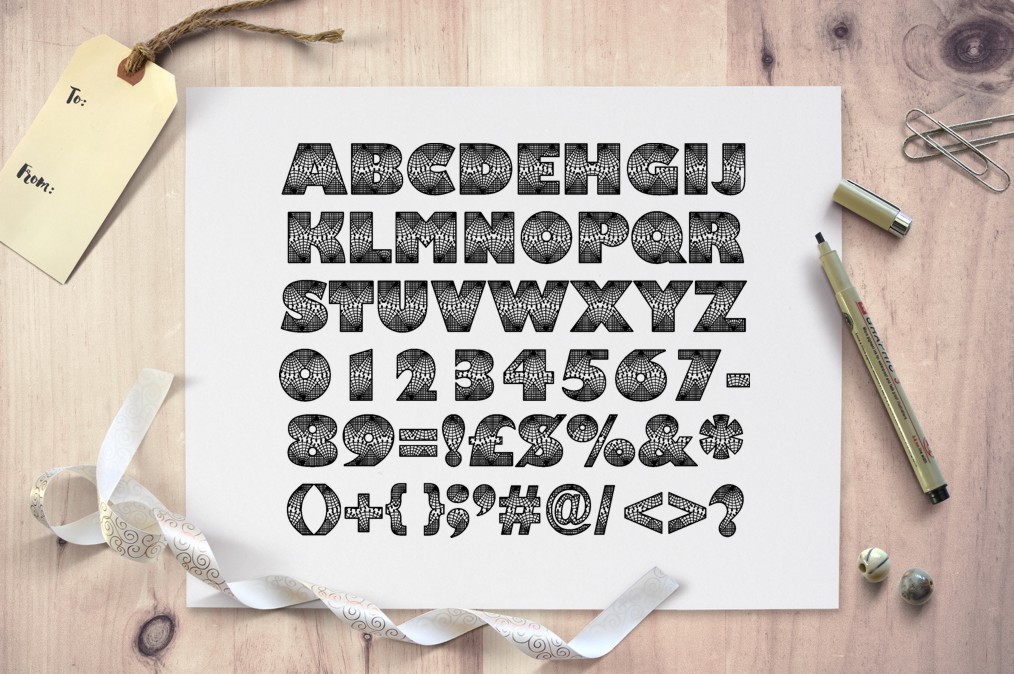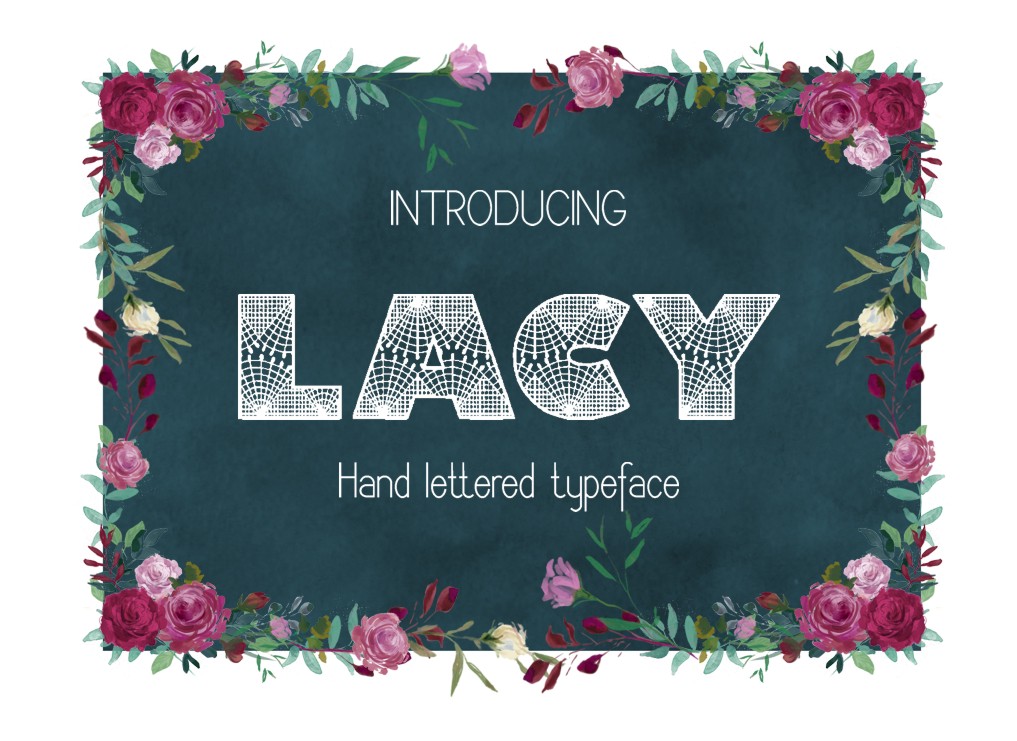
Introduction to Lacy Font
As a designer, there’s nothing quite like the thrill of discovering a new font that sparks creativity and takes your project to the next level. For me, that moment came when I stumbled upon the enchanting Lacy Font by the talented Eva Barabasne Olasz.
With its delicate, lace-like patterns and intricate details, the Lacy Font is a design resource that adds a touch of elegance and sophistication to any creative project. Whether you’re working on a wedding invitation, a fashion brand’s logo, or a packaging design, this high-quality font is sure to impress. And the best part? It’s available for free download with a transparent background, making it incredibly versatile and easy to use.
As a valuable addition to any designer’s toolkit, the Lacy Font offers endless possibilities for creative expression and experimentation. So why not give it a try and see how it can elevate your next design project?
Key Features of Lacy Font
- High-quality, intricate design suitable for various creative projects.
- Unique lacy patterns and delicate details make it perfect for adding a touch of elegance to any design.
- Can be easily scaled and manipulated to suit the needs of your design project.
Honest Review: Lacy Font
I recently stumbled upon the Lacy Font while searching for a high-quality design resource to add some elegance to my creative project. I was excited to give it a try and see if it lived up to my expectations.
Here are the things that I think work well with the Lacy Font:
- ✨ Beautiful, intricate design that adds a touch of sophistication to any text
- ✨ Suitable for a wide range of creative projects, from wedding invitations to fashion branding
- ⚠️ Limited font sizes, which may require some additional formatting to achieve the desired look
- ⚠️ Not ideal for use on digital platforms, as it may not display well on smaller screens
Overall, I’m impressed with the Lacy Font. It’s a great choice for designers who want to add a touch of whimsy and romance to their creative project. While it may have some limitations, it’s a high-quality design resource that’s definitely worth exploring.
Lacy Font
Tips for Getting the Most Out of Lacy Font
Use Lacy Font to add a touch of elegance to your creative projects. Experiment with different font sizes, colors, and combinations to achieve the desired design effect. Take advantage of the font’s transparent background to create visually appealing designs.
Lacy Font is ideal for a variety of design projects, including wedding invitations, birthday cards, and business presentations. Its high-quality design makes it perfect for formal and informal designs alike.
Alternatives to Lacy Font
Alte Deutsch
Alte Deutsch is a beautiful, high-quality font suitable for various creative projects. It features a delicate, handwritten style with a transparent background, making it perfect for use in designs where subtle elegance is required.
When to use: Alte Deutsch is ideal for designs that require a touch of sophistication and refinement, such as wedding invitations, luxury brand logos, and high-end packaging. It compares to Lacy Font in terms of its intricate, handwritten design, but Alte Deutsch has a more vintage and classic feel.
Great Vibes is a free, high-quality font that can be used in various design projects. It features a beautiful, handwritten style with a modern twist, making it perfect for use in creative projects that require a unique and eye-catching design.
When to use: Great Vibes is ideal for designs that require a modern and playful touch, such as social media graphics, blog posts, and advertising materials. It compares to Lacy Font in terms of its delicate and intricate design, but Great Vibes has a more modern and trendy feel.
Can I use Lacy Font with a transparent background, and what are the technical requirements?